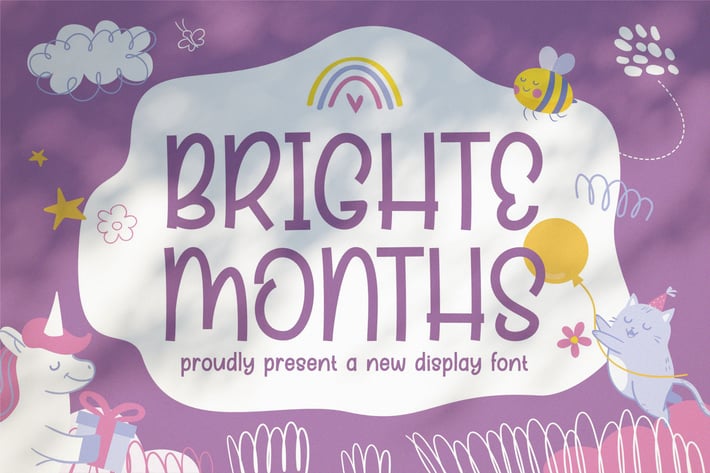
Bright Month - Handwritten Font
Introducing the Bright Month a New Display Font. Very suitable to be combined with invitation card designs, company logos, film titles, film names, business cards, book titles, brand names and various other designs. Its stylish alternation and binding make this font the perfect partner for any project.